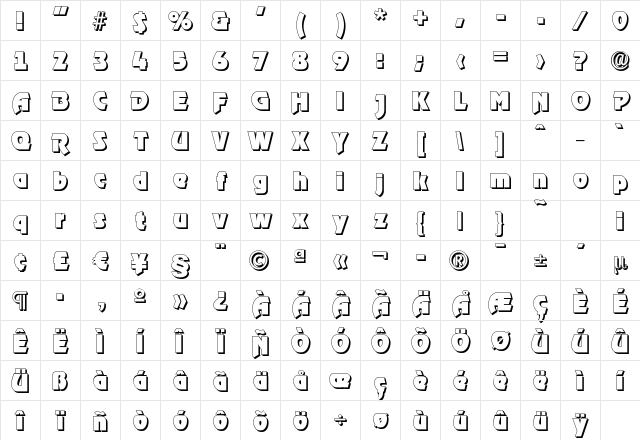
OnStageDropShadow-Black Regular
Design Context for OnStageDropShadow-Black
OnStageDropShadow-Black is built around its visual character rather than neutral utility - its distinctive forms are designed to make an impression at display sizes.
Font Pairing: Pair with a clean neutral sans-serif for body copy to let OnStageDropShadow-Black's character lead without overwhelming the composition.
Pro Tip: Use OnStageDropShadow-Black exclusively at display sizes - it was designed to be seen, not read at length. Let a neutral companion handle body copy.